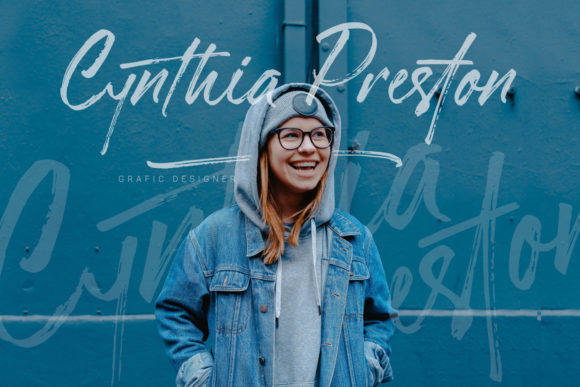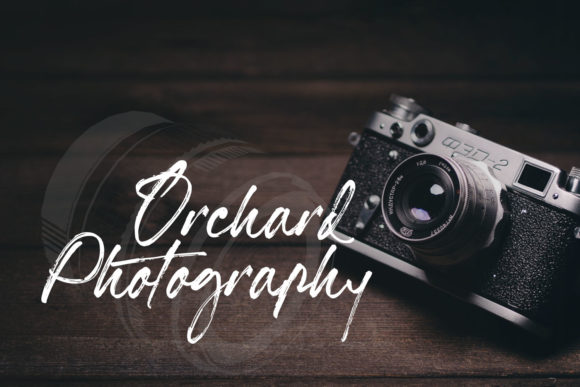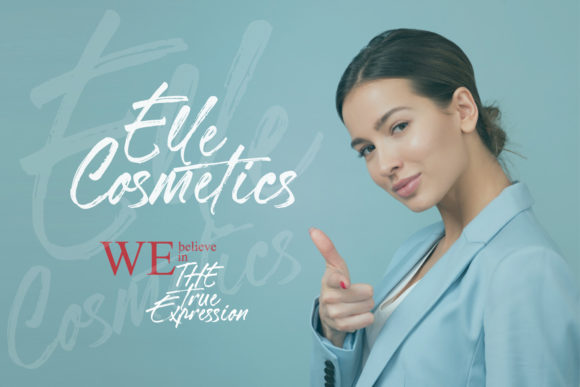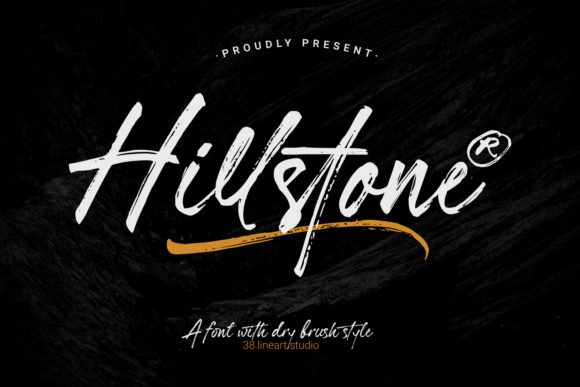
Introduction to Hillstone Font
Hillstone is a fun and playful handwritten font with a cool vibe.
Get inspired by its unique charm, and turn any design idea into a true standout .
Key Features of Hillstone Font
Why Choose Hillstone Font?
Hillstone Font offers exceptional quality and versatility, making it a valuable addition to your design toolkit. Whether you’re creating for personal projects or commercial use, Hillstone Font delivers professional results.